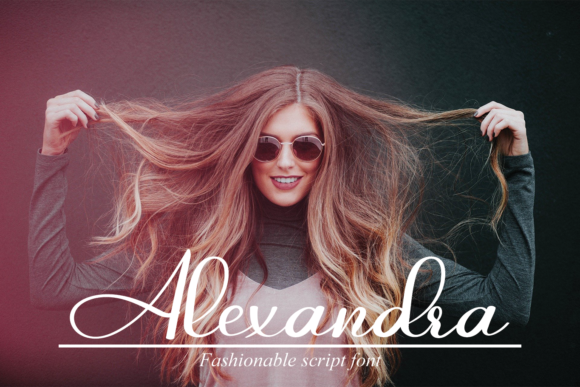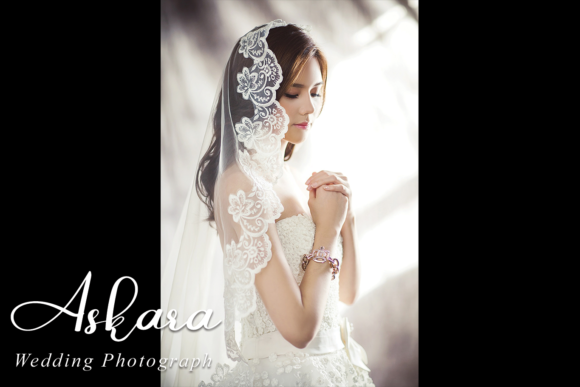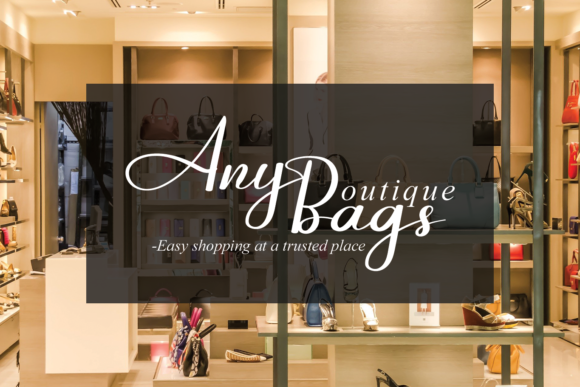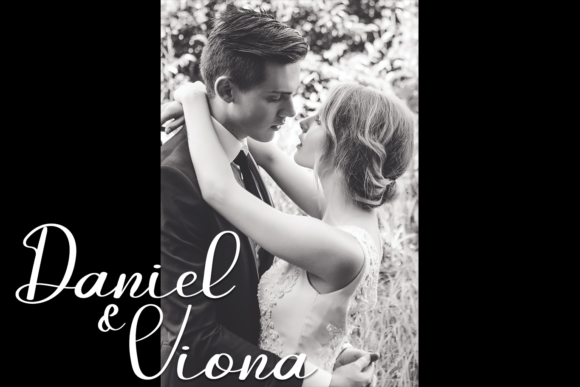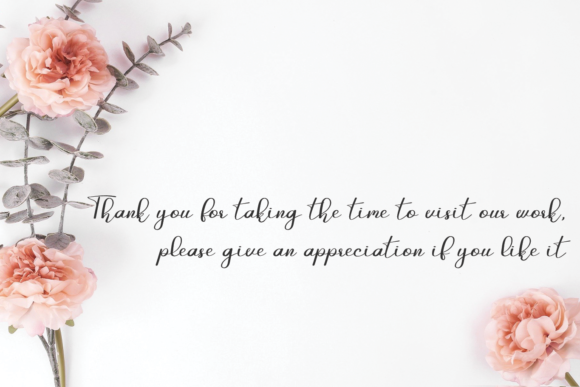
Alexandra Font
About Alexandra Font
Alexandra is a beautiful and refined script font. It has a classy, elegant, and modern look that can be used for logos, branding, invitations, stationery, wedding designs, social media posts, and much more!